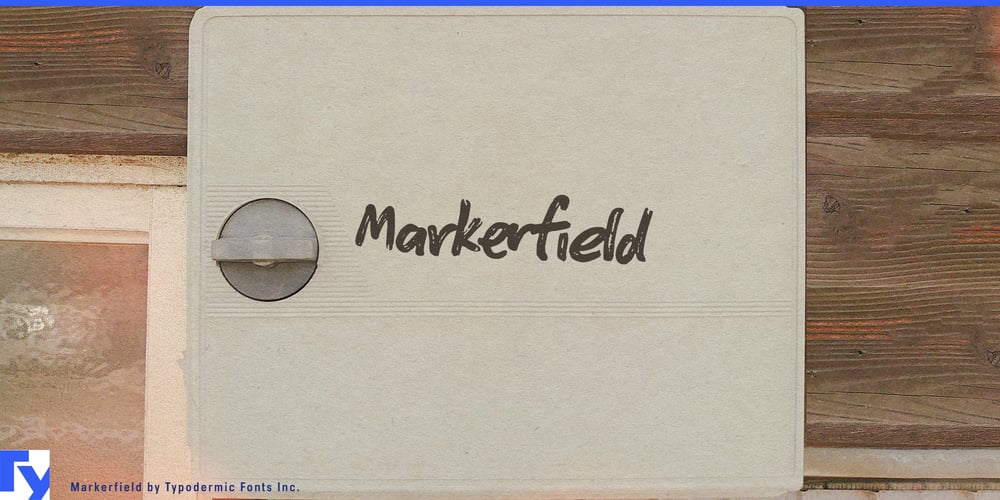
Markerfield Font Family was designed by Ray Larabie and published by Typodermic. Markerfield contains 1 styles and family package options. Welcome to the wild world of Markerfield, the typeface that turns every sentence into a spontaneous burst of creative energy. It’s a visual representation of that “Eureka!” moment, captured in all its messy, brilliant glory.Imagine the satisfying squeak of a marker against a whiteboard. Now, picture that sound translated into typography. That’s Markerfield. Each character embodies the raw, unfiltered essence of brainstorming sessions and late-night inspiration strikes. It’s the typographic equivalent of saying, “I had this idea, and it was too good to wait for a clean sheet of paper!” But Markerfield isn’t just about looking hastily scrawled. Oh no, it’s got some serious tech under the hood. For those in the know with OpenType-savvy programs, Markerfield pulls out all the stops. It automatically swaps in custom letter pairings that mimic the natural flow of handwriting, creating an uncanny illusion of real-time ideation. It’s like having a team of tiny typographers working overtime to make your text look authentically off-the-cuff.In a world of polished presentations and pixel-perfect designs, Markerfield dares to be different. It’s the typeface for brands that aren’t afraid to show their human side, for startups that want to convey rapid innovation, or for anyone who’s ever said, “Let’s think outside the box,” and actually meant it. Markerfield speaks the language of creatives fluently, but it’s not picky about its audience. Supporting a vast array of Latin-based European writing systems, it ensures your spontaneous thoughts can be understood from the brainstorming rooms of Berlin to the coffee shops of Barcelona. Whether you’re jotting down ideas in Dutch or scribbling manifestos in Swahili, Markerfield maintains its charmingly chaotic character.Don’t just communicate—innovate on the fly with Markerfield. Let this typeface be the catalyst for designs that don’t just catch the eye, but spark the imagination. From meeting notes that look like they could change the world to websites that feel like a peek into a genius’s sketchbook, Markerfield infuses every project with a sense of limitless possibility and just-add-water inspiration.